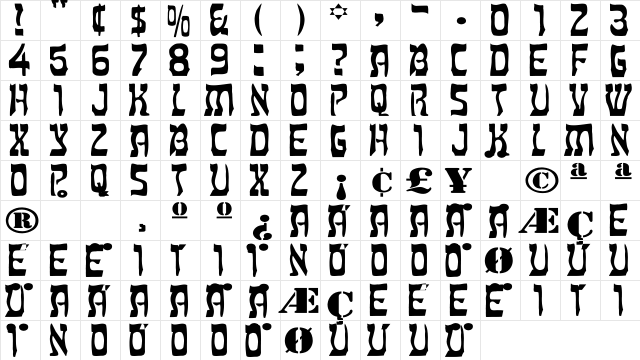
Moses-Light Wd Regular
Design Context for Moses-Light Wd Typeface
Moses-Light Wd is a composed and adaptable typeface that performs quietly and consistently across a wide range of design contexts. Its slender proportions lend an understated elegance to any composition.